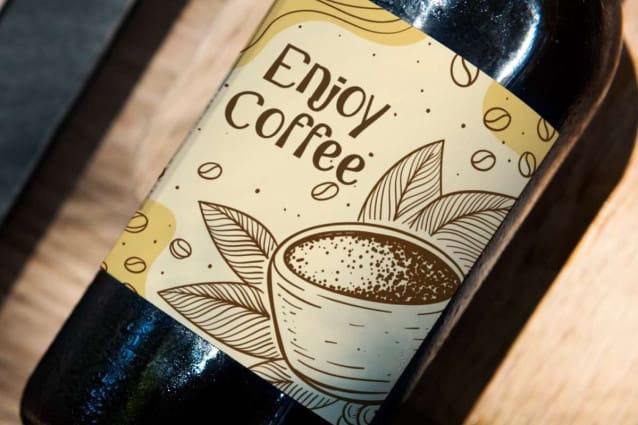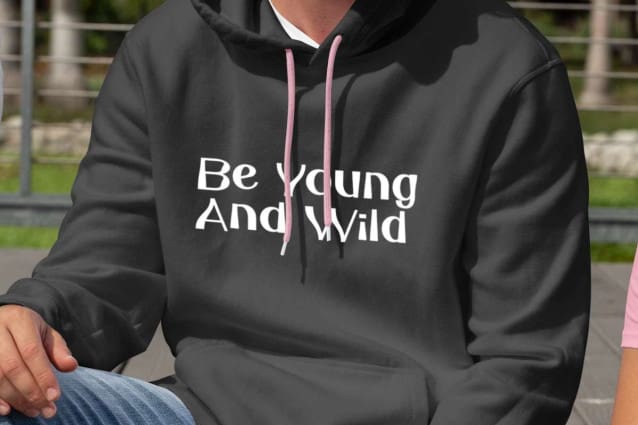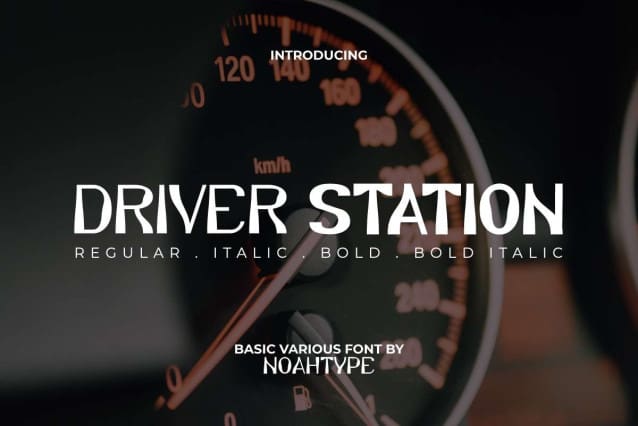
Driver Station Font
Driver Station Font is a unique font family that is inspired from retro racing displays. This font has unique shaped that will make your designs more stylish! It actually would be perfect choice for many industries, such as fashion, accessories, advertisement, café, game, movie, handicrafts, printing, publishing, and more!
Driver Station Font include full set of Uppercase and Lowercase Basic Characters, Numerals and Punctuation. This font has a style that can be used for many purposes that available in four styles: Regular, Italic, Bold, and Bold Italic. Also can be used in any design, such as custom design, greeting card, catalog, label, magazine poster, product packaging, screen printing, signage, stationery, sticker, title, website, etc.